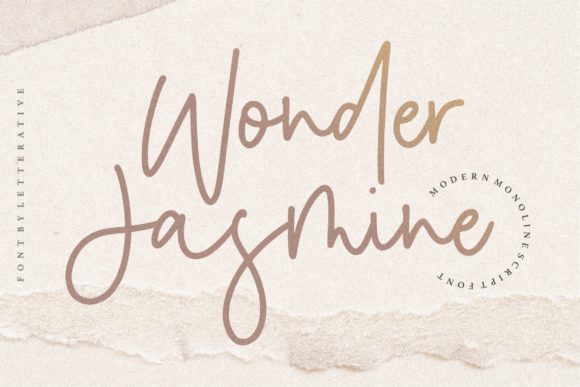
Behold, the enchanting Wonder Jasmine Font - a calligraphy script masterpiece that captivates hearts with its delicate strokes and enchanting charm. Designed by the talented letterativestudio, this font family effortlessly merges classic elegance with modern aesthetics, making it the ideal choice for those seeking to make a lasting impression.
Let your imagination soar as you explore the limitless creative opportunities offered by Wonder Jasmine. Whether you're designing logos, crafting invitations, creating social media posts, or embarking on any other creative pursuit, this font will elevate your words into works of art. With its warm, inviting personality, Wonder Jasmine adds a touch of sophistication and uniqueness to every project, leaving a lasting impression on your audience.
Picture this: Your logo, adorned with the graceful curves of Wonder Jasmine, standing out boldly against the competition. Your social media posts, infused with the elegance of this font, capturing attention and engaging your followers. Your invitations, transformed into exquisite masterpieces, leaving a lasting memory in the hearts of your guests. The possibilities are endless, and the results are nothing short of captivating.
Unleash your creativity and embrace the boundless potential of Wonder Jasmine. Let its beauty and charm enhance your designs, elevating them to new heights of excellence. Experience the joy of creating with a font that truly resonates with your soul. Embrace Wonder Jasmine today and embark on a creative journey that will leave you inspired and erfüllt.